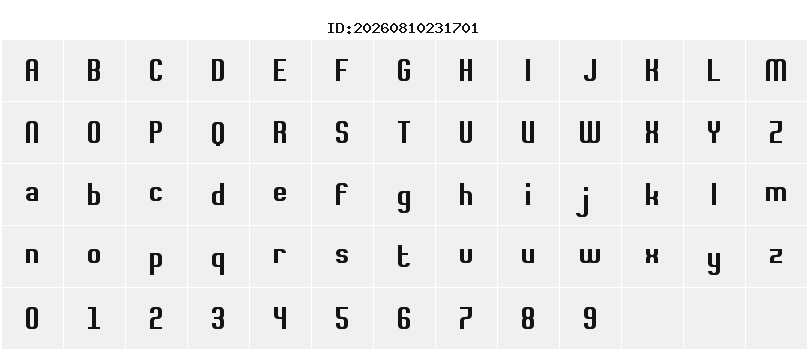
Rvaturecu Preview
• Font Name: Rvaturecu
• Full Font Name: Rvaturecu Regular
• Designer: NAL
• Description: “Rvaturecu” was built with FontStruct
About Rvaturecu.ttf
Rvaturecu.ttf is a modern, elegant sans-serif font designed for ultimate readability and visual harmony. Perfect for branding, headlines, web design, and print materials.